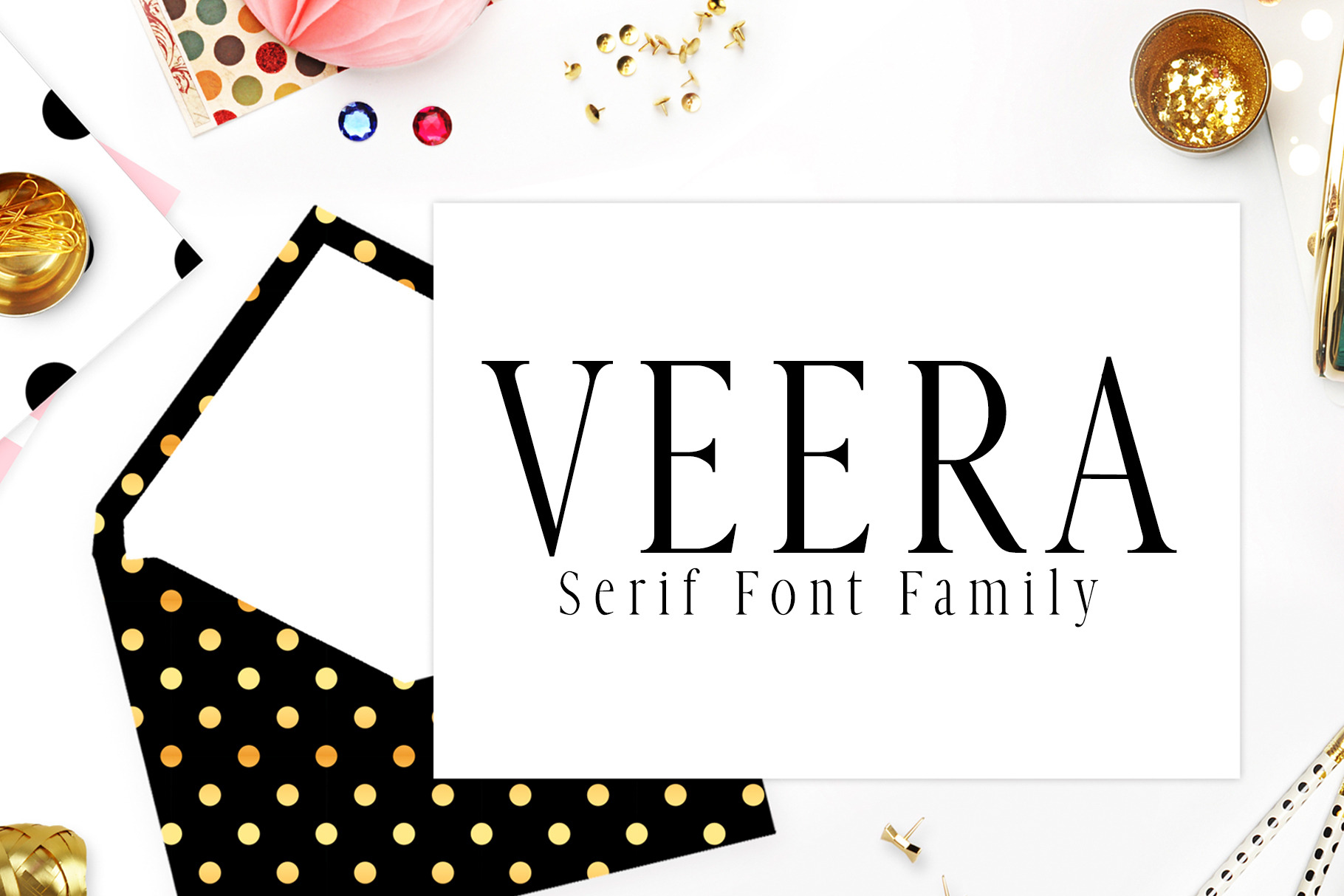
Veera Serif 4 Font Family Pack
Veera Serif Typeface is minimalist and beautiful serif font family of 4 weights and it features unique and modern serif look and feel. Perfect for gorgeous logos & titles, layouts & content, or large & small scale, It looks gorgeous in all caps with a wide-set spacing if you want to try a classy look, or beautiful on its own in capital and lowercase letters for something completely timeless.
- Font Weight: Regular, Thin, Bold and Extra Bold
- Extras: Uppercase Multilingual Letters, Lowercase Multilingual Letters, Numbers & Punctuation + Alternatives.